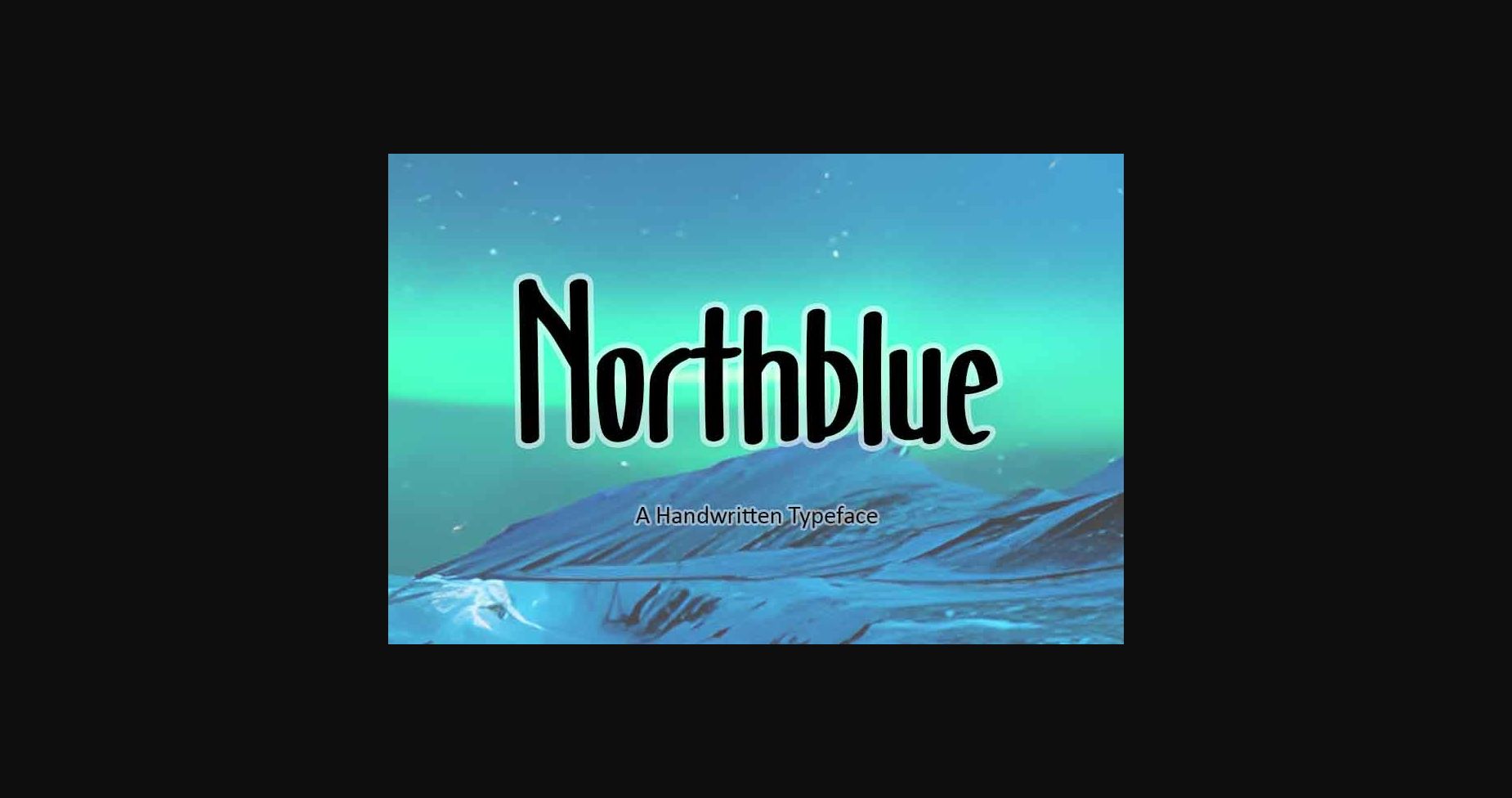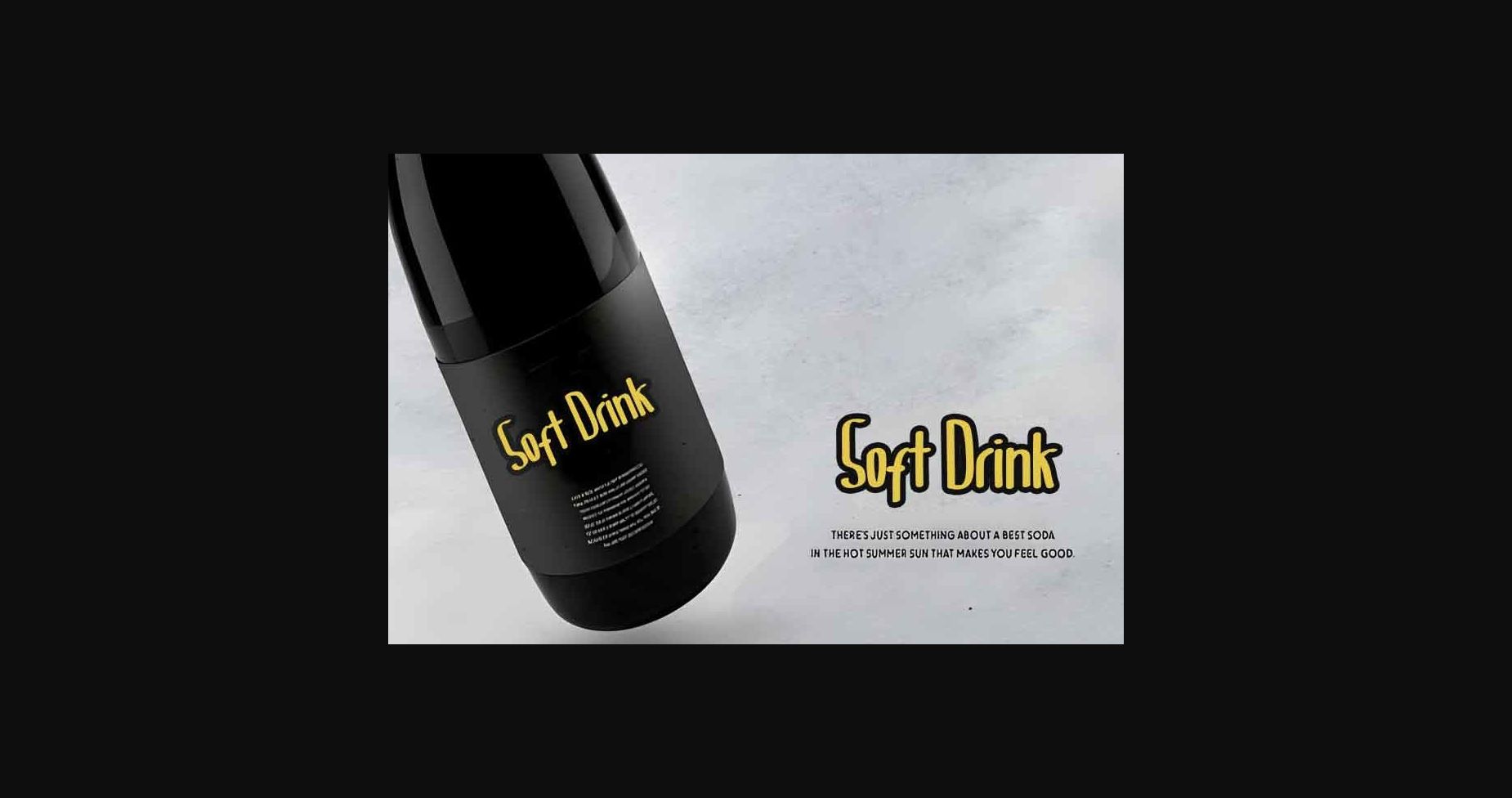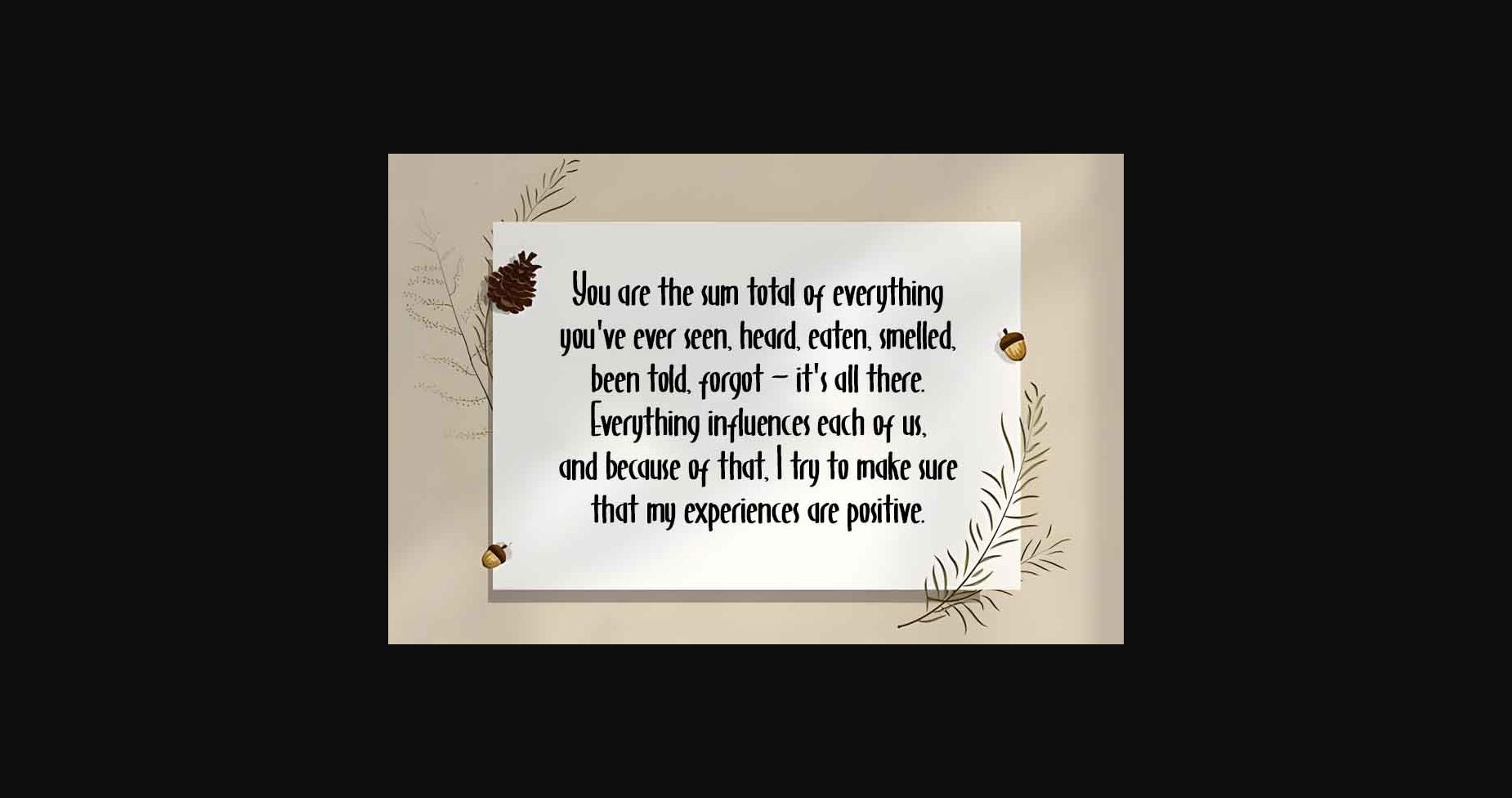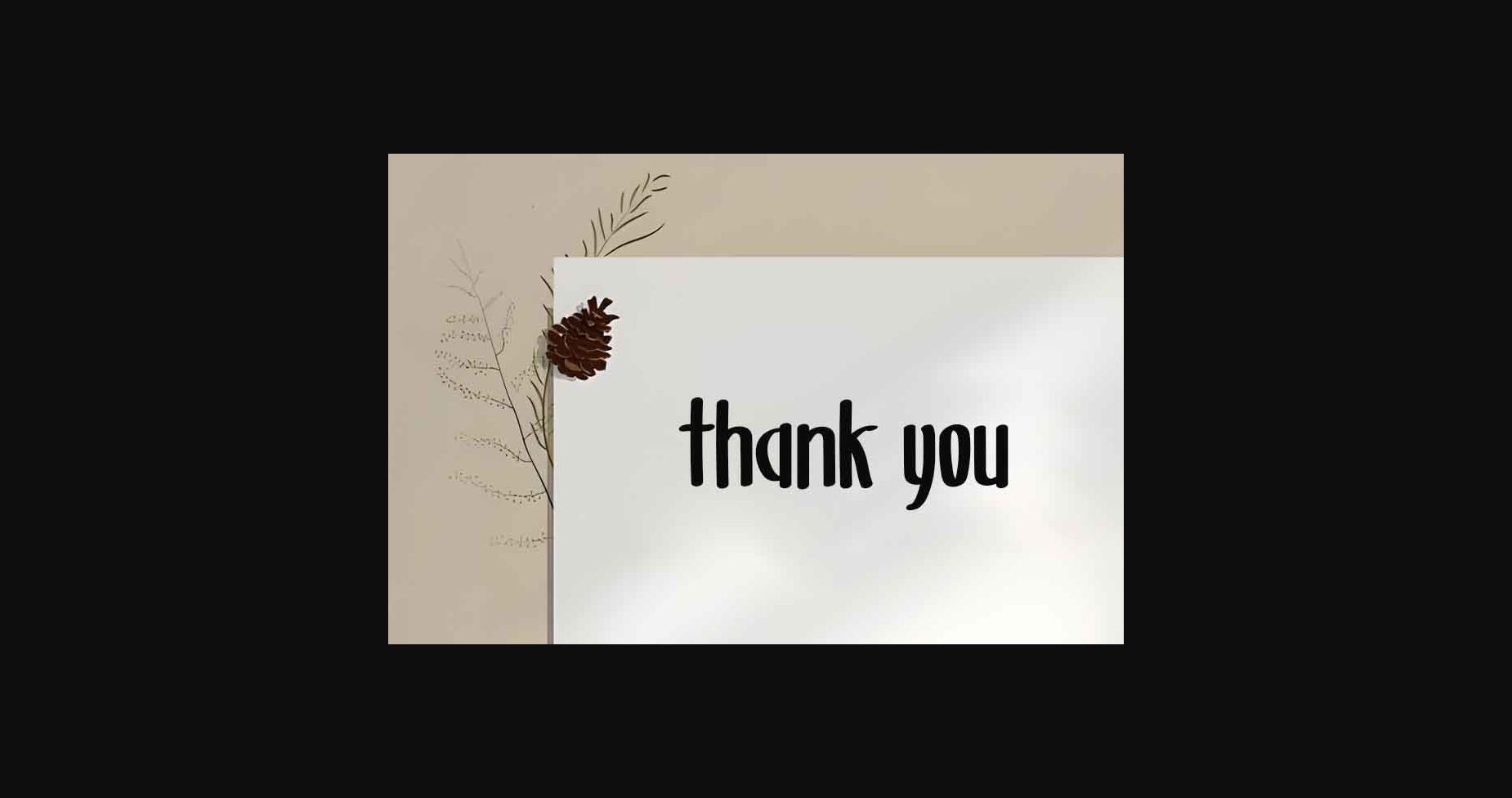
Northblue Font
About Northblue Font
Northblue is a fun and quirky sans serif font. Add it to your crafty ideas, and enjoy the results! It will look great -on cards, promotional ads, social media posts, product packaging, and others.